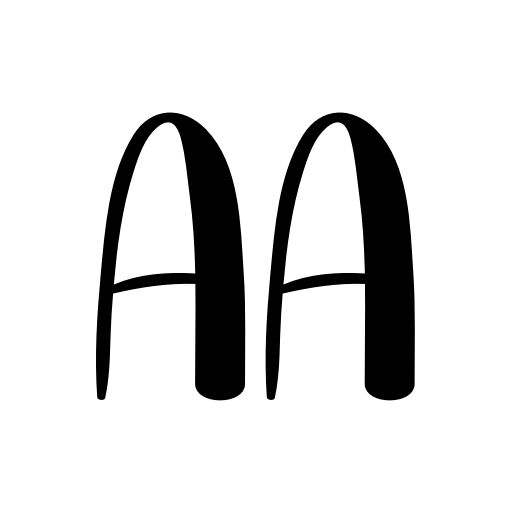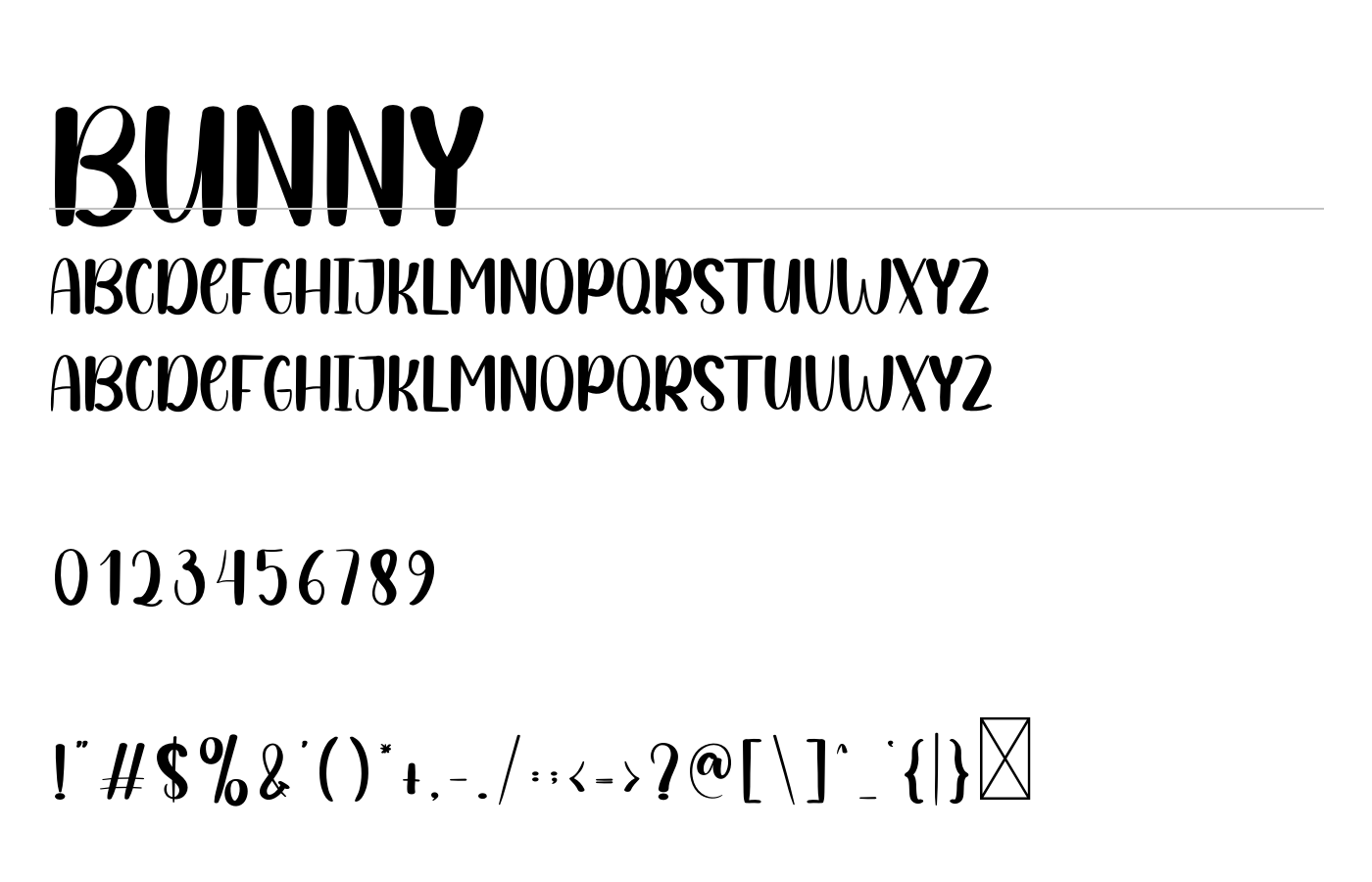
Bunny Font is a playful and casual sans serif typeface with a hand-drawn, slightly whimsical feel. Its tall, narrow letterforms with soft curves and uneven strokes create a friendly, approachable personality perfect for informal branding, children’s products, or creative projects. This font works best in headlines, logos, and designs where a fun and lively touch is needed.
Bunny Font